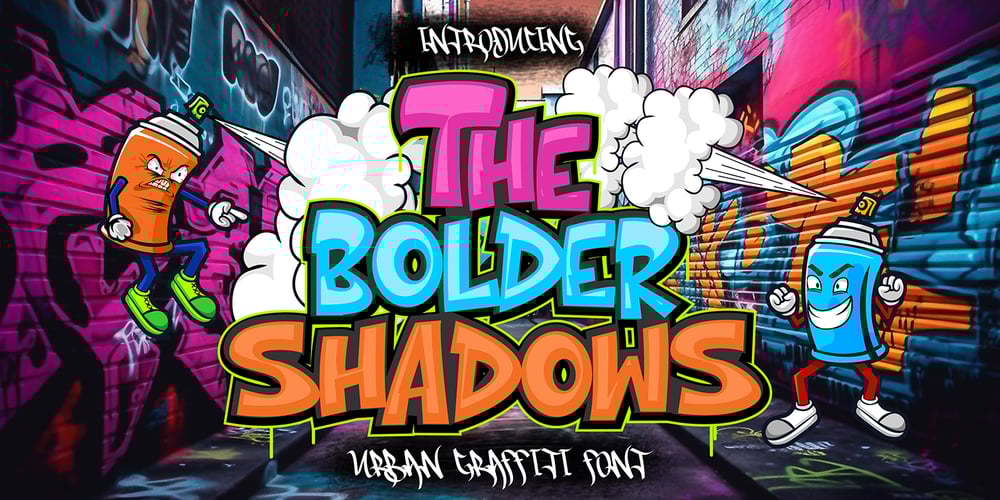
The Bolder Shadow Font Family was designed by Sipanji and published by Sipanji21. The Bolder Shadow contains 3 styles and family package options. The Bolder Shadows is an urban graffiti font characterized by sharp edges and a bold look. Ideal for music posters, apparel designs, shirts, and streetwear, this font brings a touch of edginess to your projects. The unique style of “The Bolder Shadows” makes it the perfect choice for street style or urban graffiti themes. Whether you want to create a strong and powerful statement or simply add a touch of attitude to your designs, “The Bolder Shadows” is the font for you.